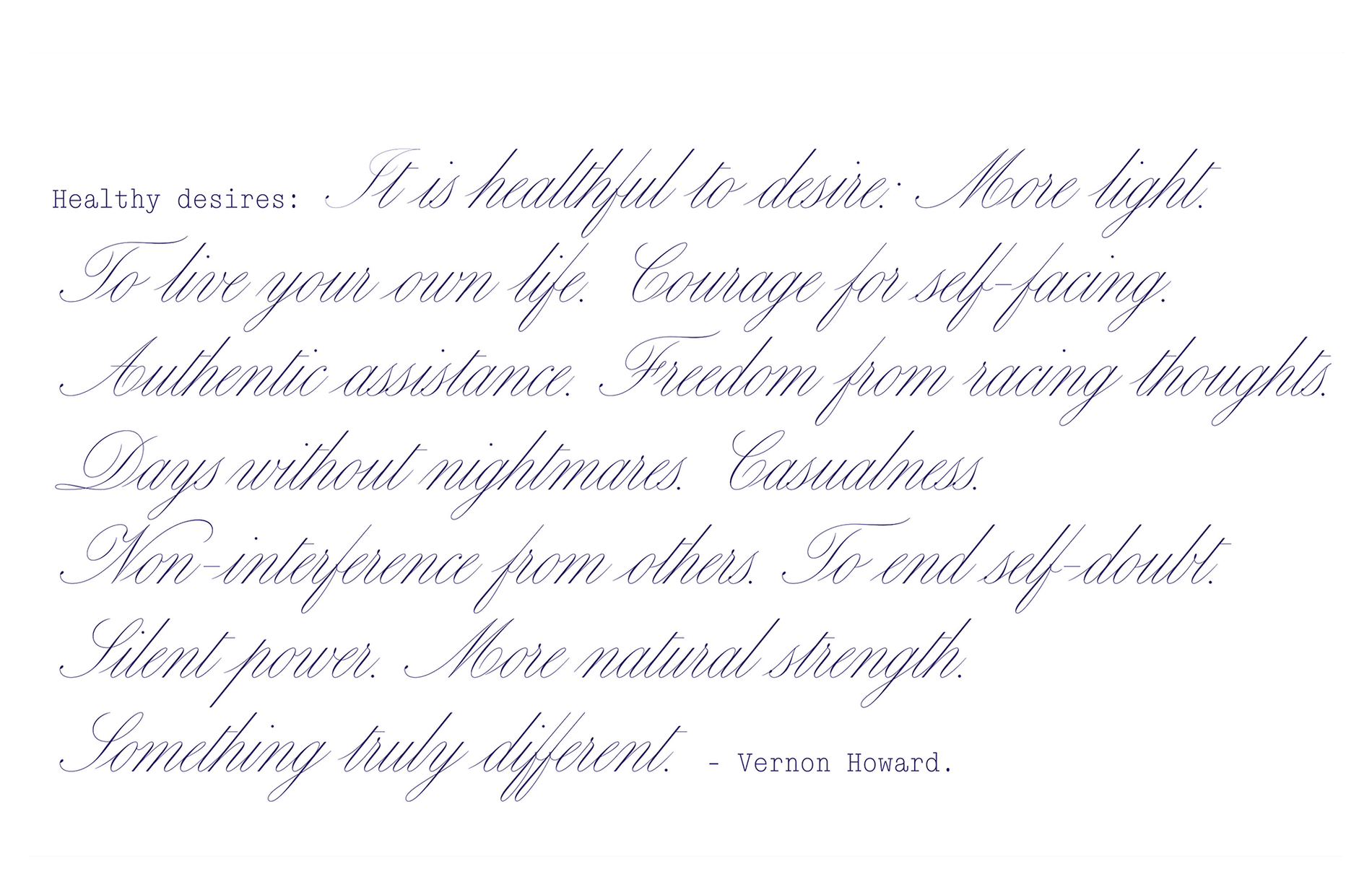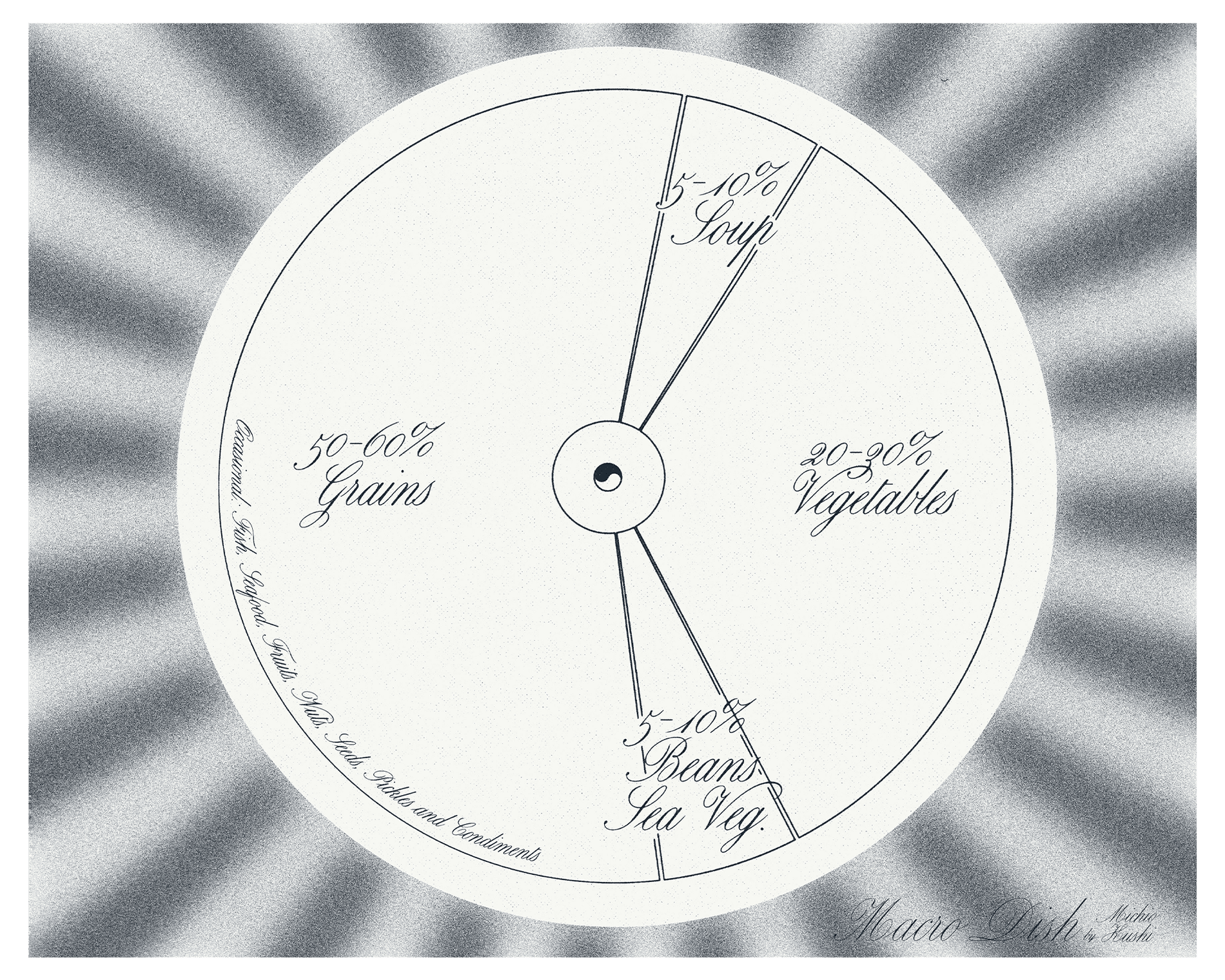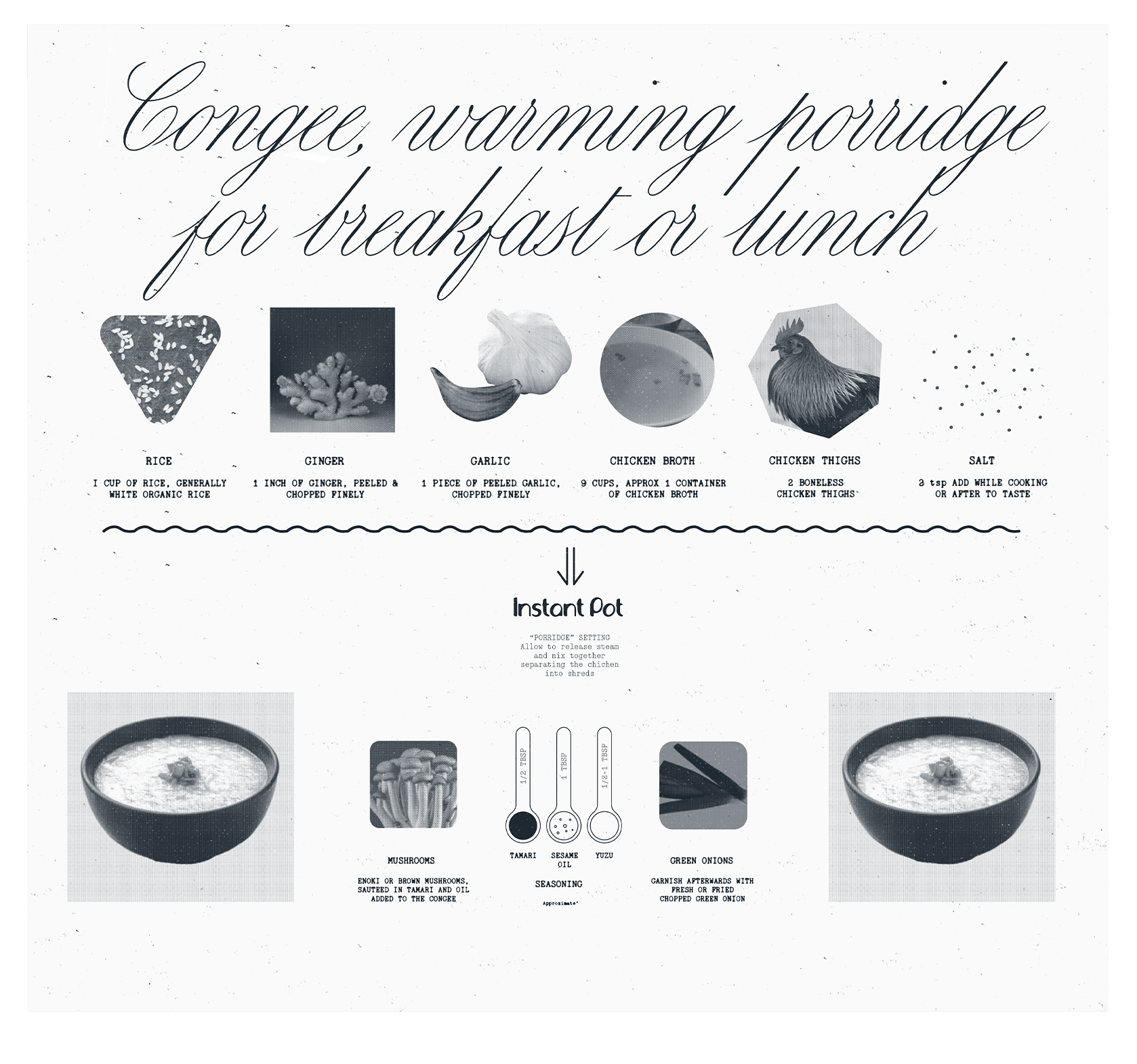
Rachel Day and Justin Sloane collaborated on a multimedia mixtape for Montréal-based luxury and streetwear retailer SSENSE. Steps to Stillness is a piece on the online magazine that is part visual meditation and part offering with practices to restore and recenter.
The story is one of the earliest uses of Carta Nueva by My-Lan Thuong, and the script typeface fittingly resonates with the story’s ambient and gentle tone. Unlike contemporary representations of wellness that can be flashy and prescriptive, these monochrome illustrations are soothing with their bluish-gray tones. Readers can learn how to make instant pot congee, a simple macrobiotic meal plan, as well as three Qi Gong movements.
Typeface: Carta Nueva